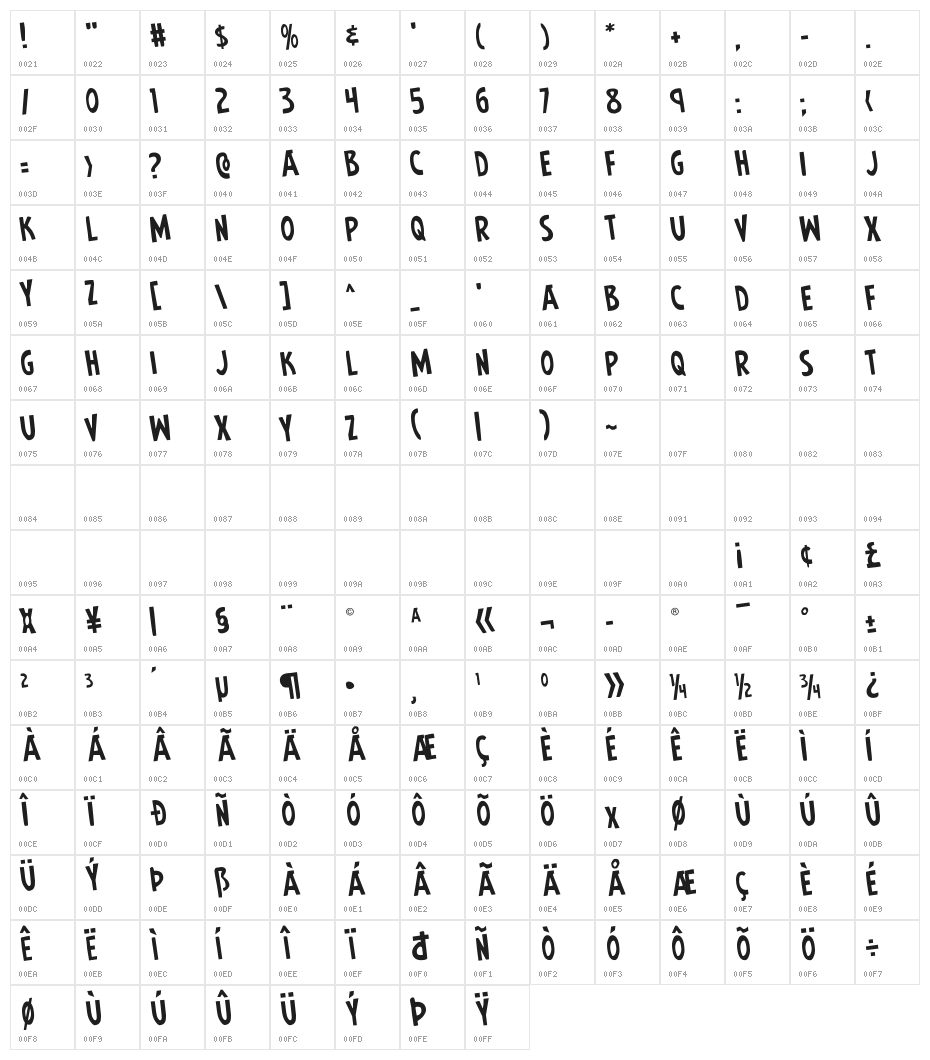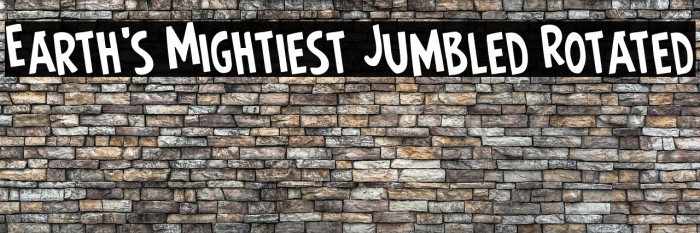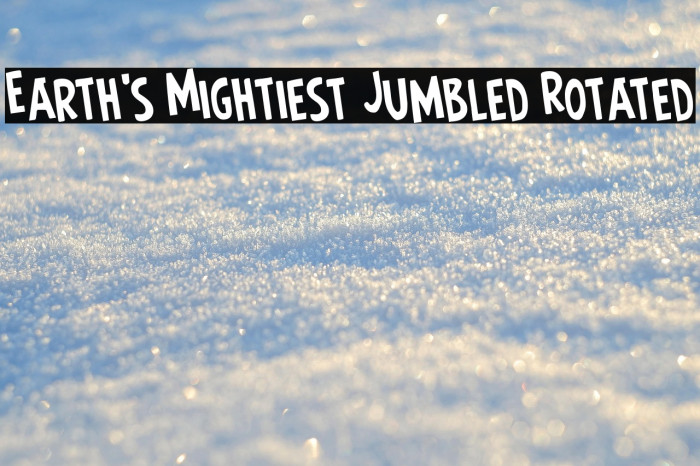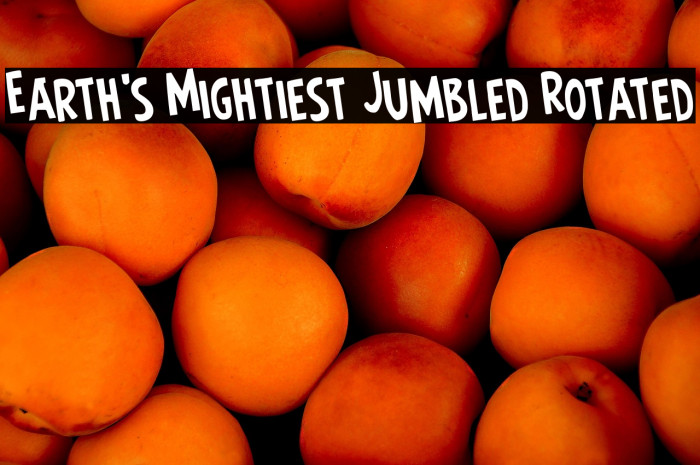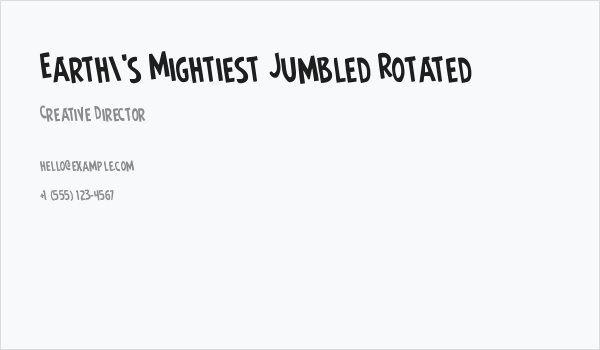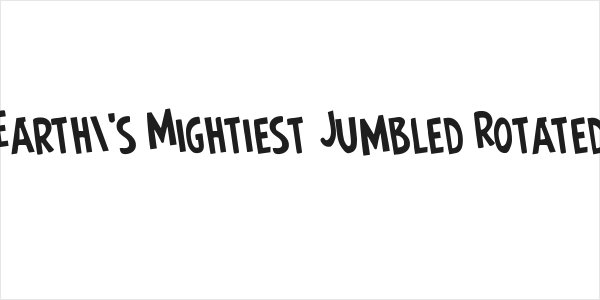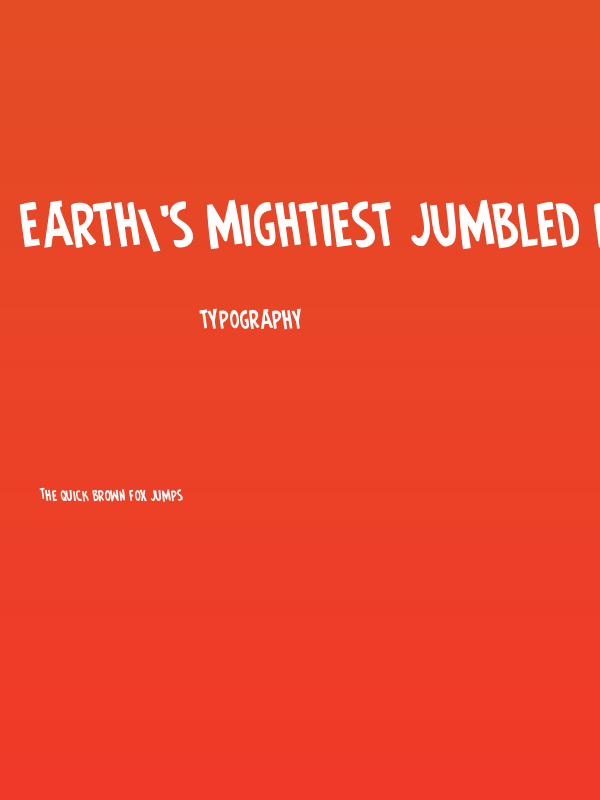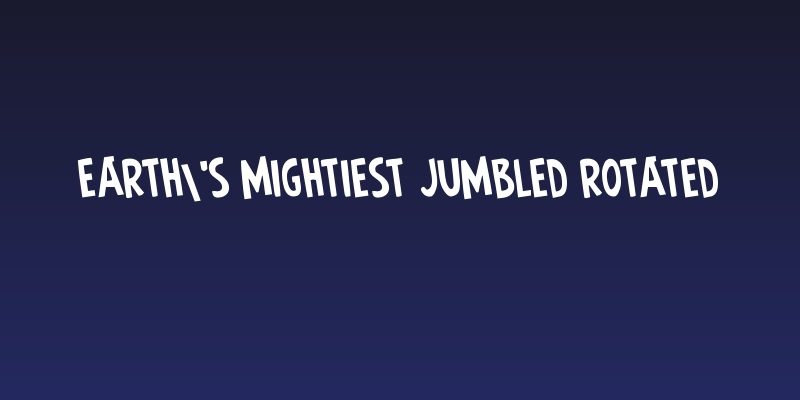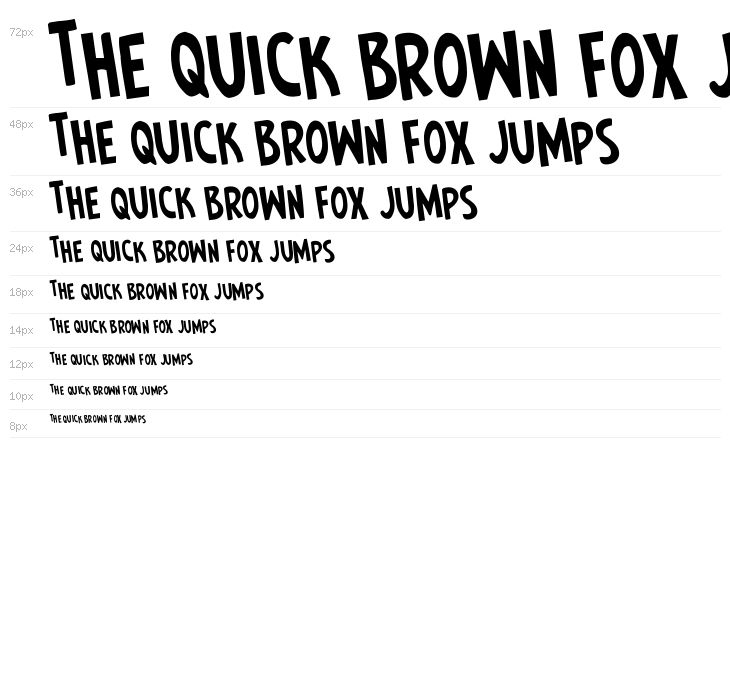
Earth's Mightiest Jumbled Rotated Font
Earth's Mightiest Jumbled Rotated Description
This font features bold, dynamic characters with a playful and energetic style. The letters are slightly slanted, giving a sense of movement and liveliness. The strokes are thick and uniform, providing a strong visual impact. The characters are well-spaced, ensuring readability while maintaining a cohesive appearance. The font includes a full set of uppercase and lowercase letters, numerals, and a variety of special characters, making it versatile for different design needs. Its boldness and unique style make it suitable for attention-grabbing headlines and creative projects.
| Overall Style | Playful, Energetic |
| Use Case | Headlines, Posters, Branding |
| Proposed Projects | Ideal for comic books, posters, children's books, and playful branding. |